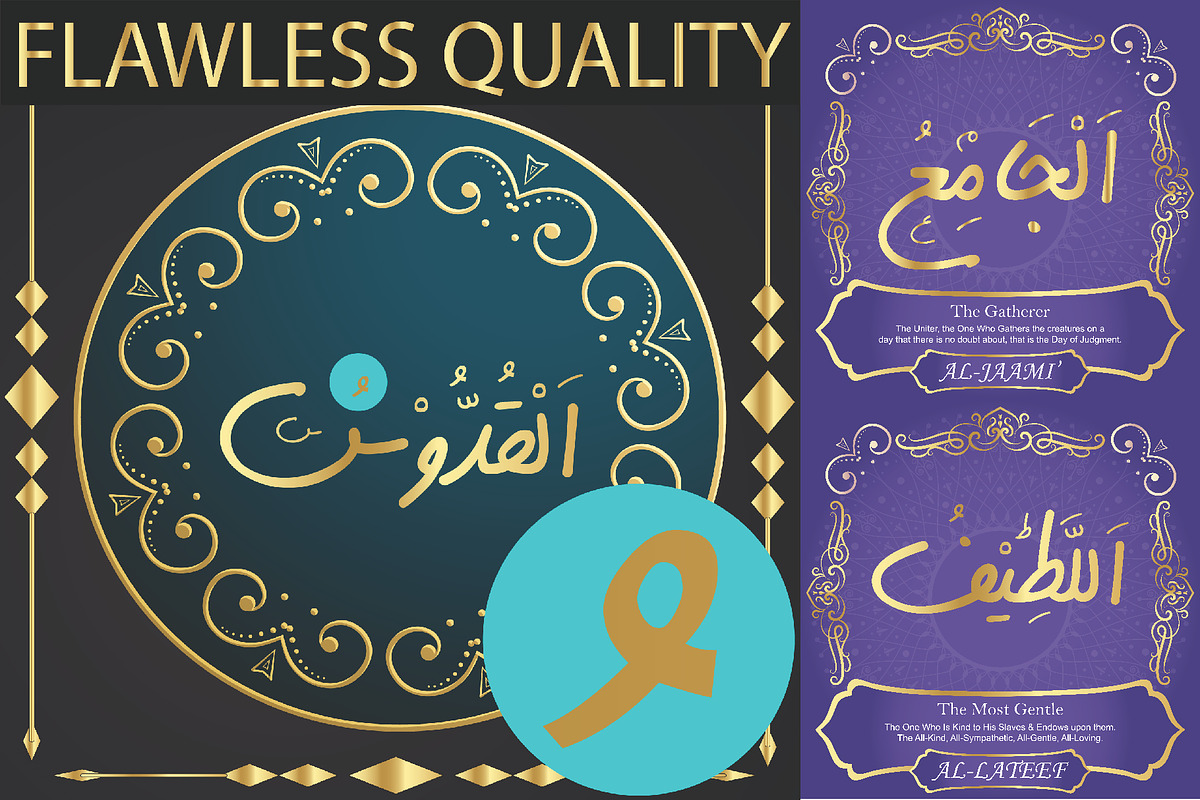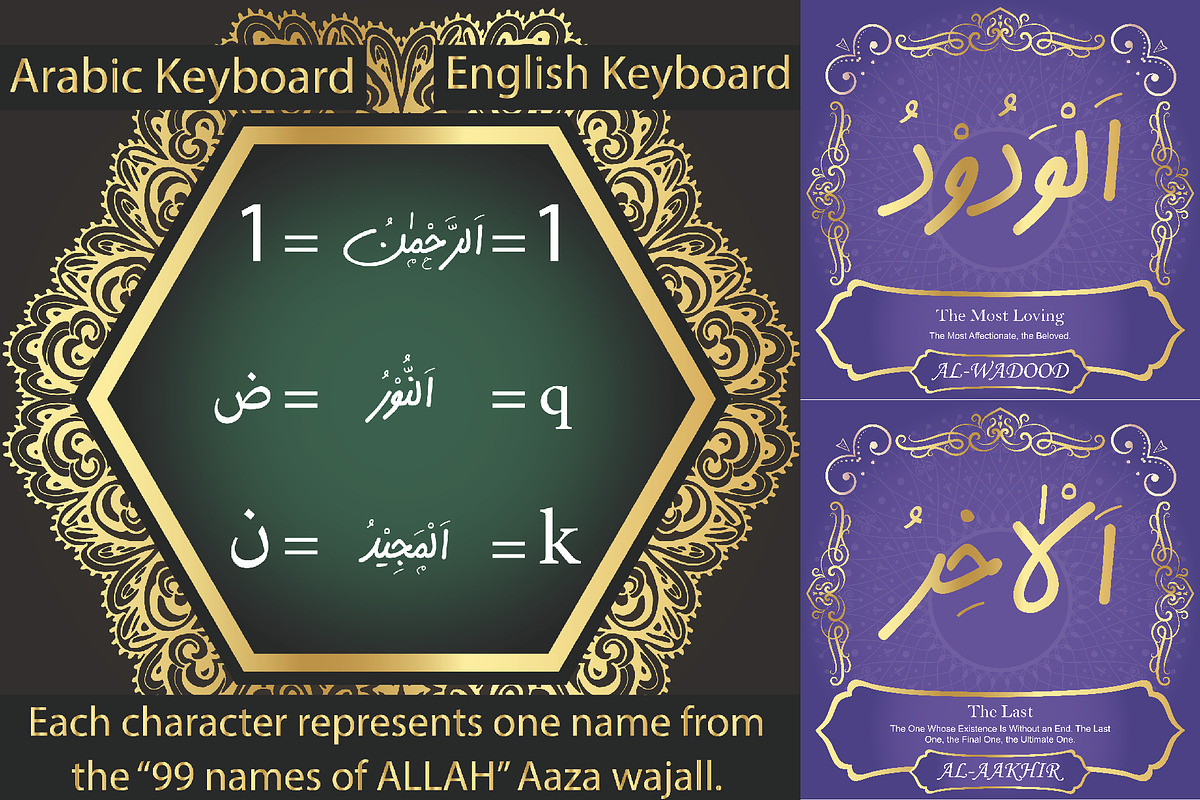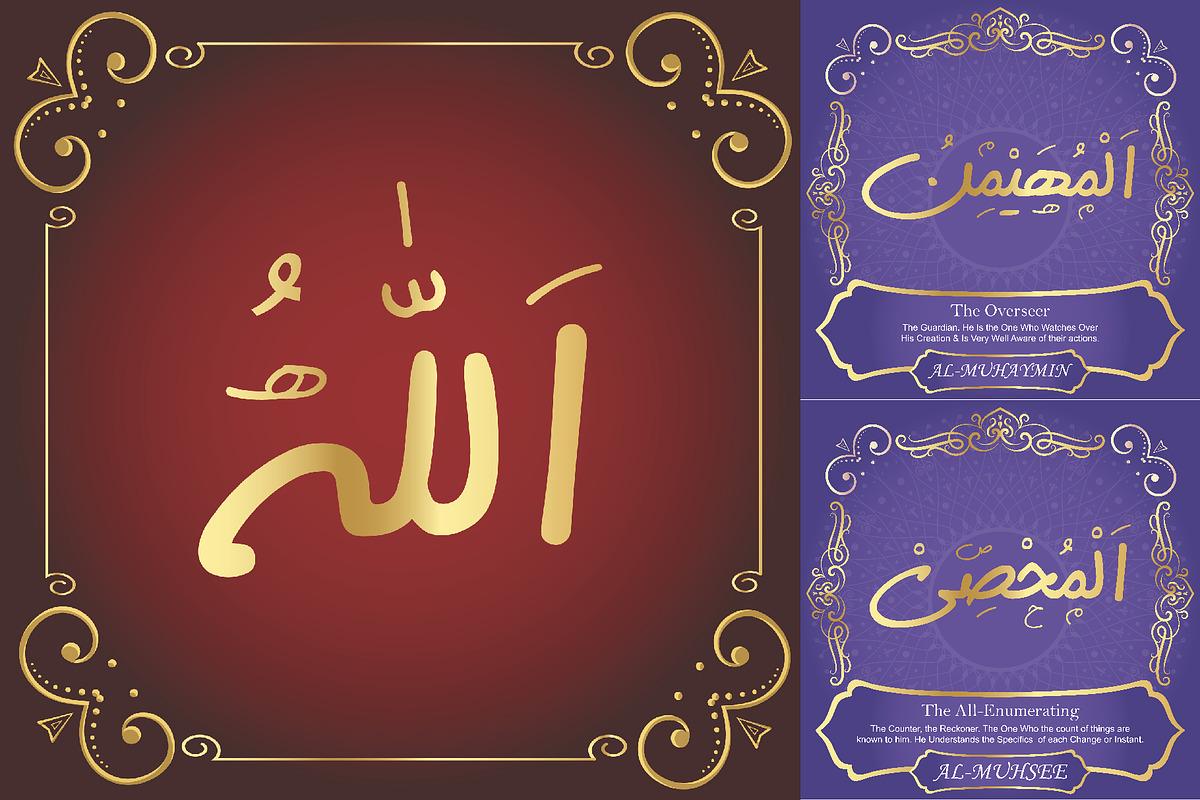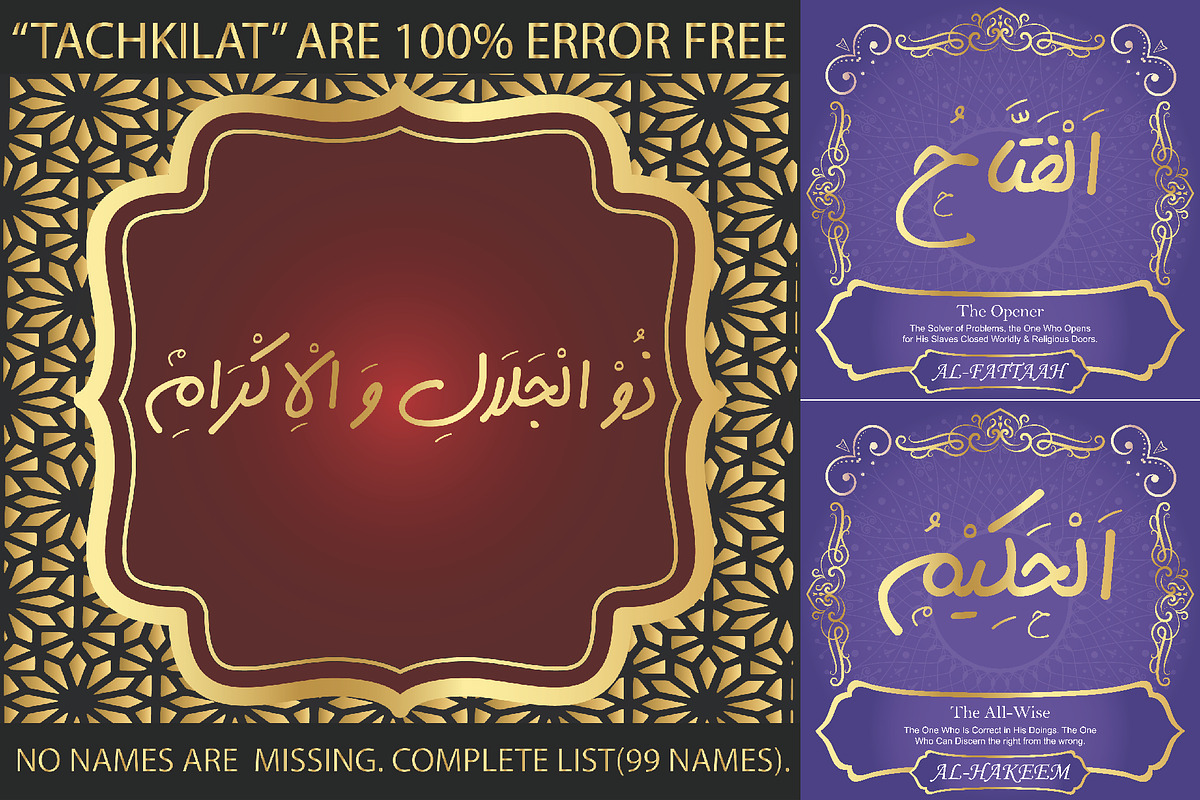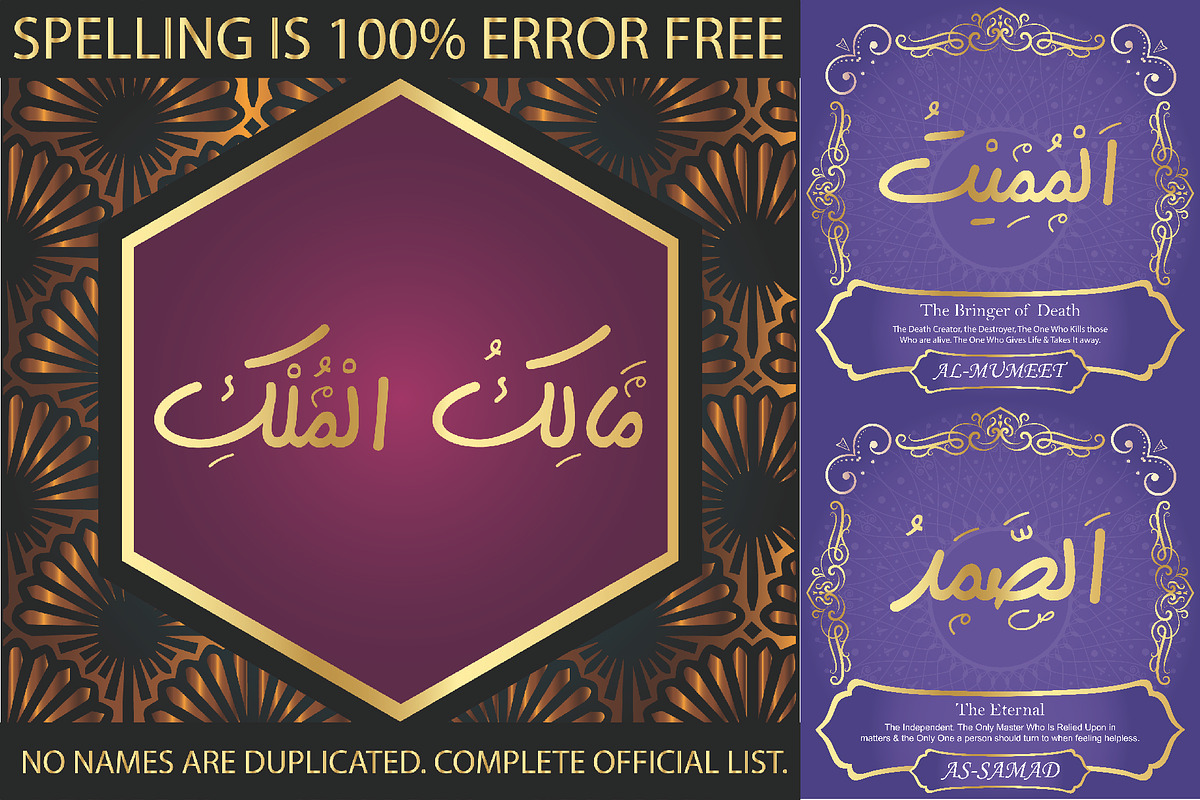
99 Names of ALLAH "Handwriting"
We have transformed the “99 names of ALLAH” into a font. That means each key on your keyboard represents 1 of the 99 names of ALLAH Aaza Wajal. The fonts work with both the English and Arabic Keyboards.
We call this Calligraphy "Handwriting" for obvious reasons. The first "Alef" has a "fatha", this indicates that the name can be pronounced only one way, "AR-RAHMAAN". (in the zip file you will find a pdf file explaining the differences in the "harakat", pronunciation and spelling according to the Holy Quran). The calligraphy is very easy to read, no letters overlaps and the decorative symbols are at minimum.
Decorative letters used in this calligraphy: "Mim, Aain, Sin, HHe, He, Saad & Ta".
Writers: Highlight the names in your texts in beautiful Islamic calligraphy.
Editors: Use with kinetic typography templates (AE) & editing software.
Designers: The very small details in the names does not affect the quality. Rest assured it is flawless.
The MOST IMPORTANT THING about this list is that all the names are 100% ERROR FREE, and you can USE THEM WITH YOUR EYES CLOSED. All the “Tachkilat” are 100% ERROR FREE, all the "Spelling" is 100% ERROR FREE, and they all have been written in accordance with the Holy Quran. No names are missing and no names are duplicated. The list is complete "99 names +1". The +1 is the name “ALLAH” 'Aza wajal.
Another important thing is how we use the decorative letters. In every font you will see small decorative letters, these letters are used only in accordance with their respective letters to indicate pronunciation & we don't include them randomly. That means "mim" on top or below the letter "mim", "sin" on top or below the letter "sin", and so on and so forth.